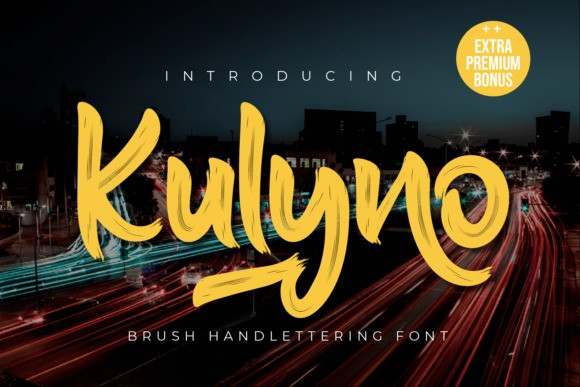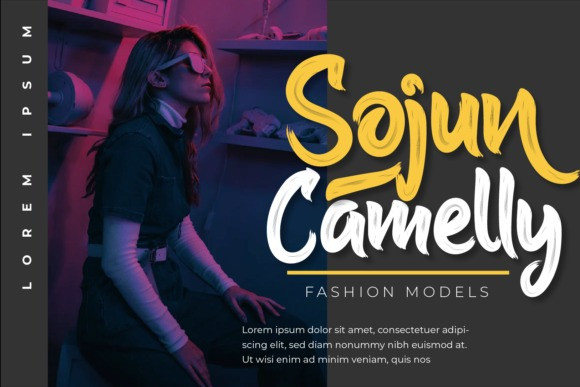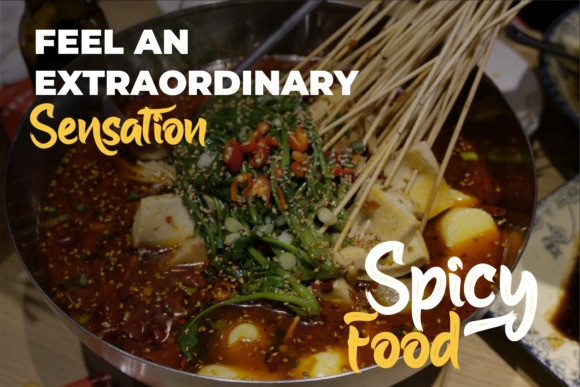
Kulyno Brush Font
Kulyno is a thick lettered, flowing display font, created with the help of a beautiful brush pen. This dazzling display font will turn any creative idea into a standout!